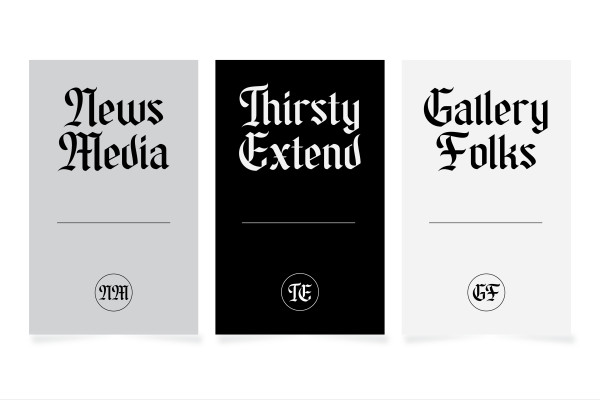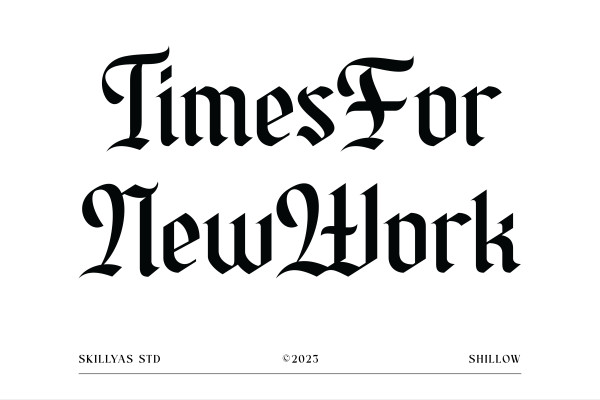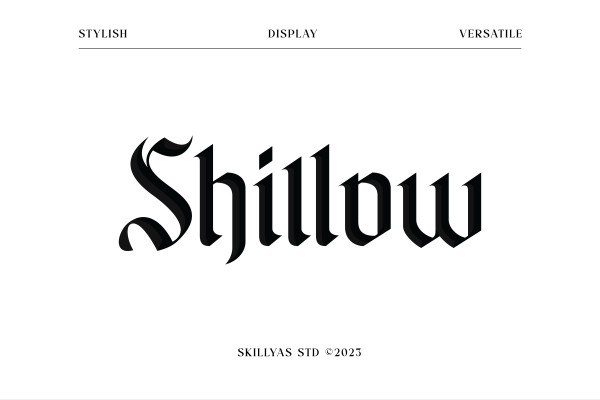
Shillow Blackletter Font
Shillow Blackletter Font is a gothic style Blackletter font with a strong and elegant look. it has clean lines and a minimalistic design with a curvy edge. Perfect for creating contemporary designs that demand a refined aesthetic.